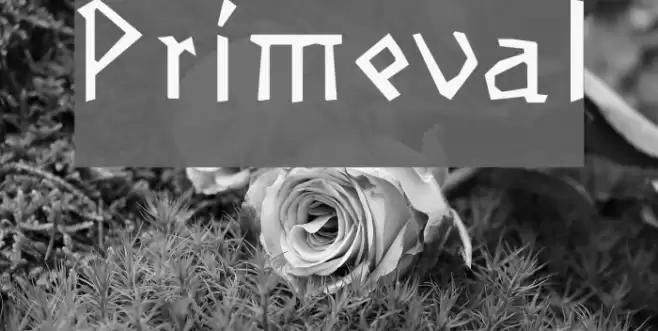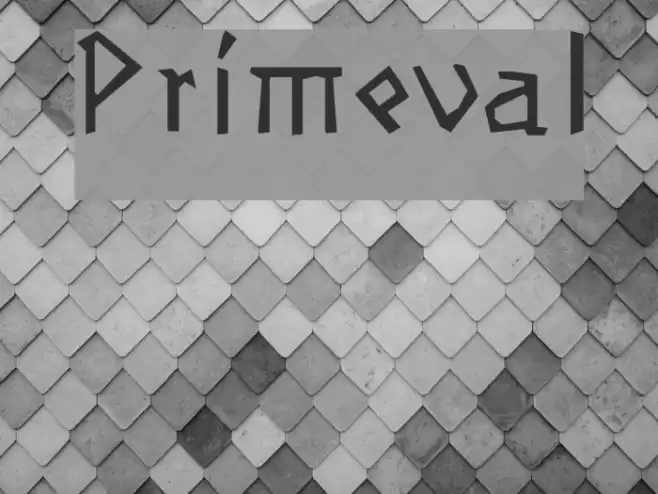
Primeval Font
Primeval Description
This font features a unique, angular design with a primitive, almost tribal aesthetic. The characters are composed of sharp, geometric lines that give it a rugged and ancient feel. The uppercase letters are bold and striking, while the lowercase letters maintain a consistent style with slightly softer edges. Numbers and special characters follow the same angular theme, making the font cohesive throughout. The overall appearance is both distinctive and memorable, suitable for projects that require a bold statement or a touch of the archaic.
An angular, primitive font with a tribal aesthetic from Uncategorized fonts.
- Proposed Projects: Ideal for branding, logos, posters, and themed events that require a bold, ancient look.
- Use Case: Logos, Posters, Headlines